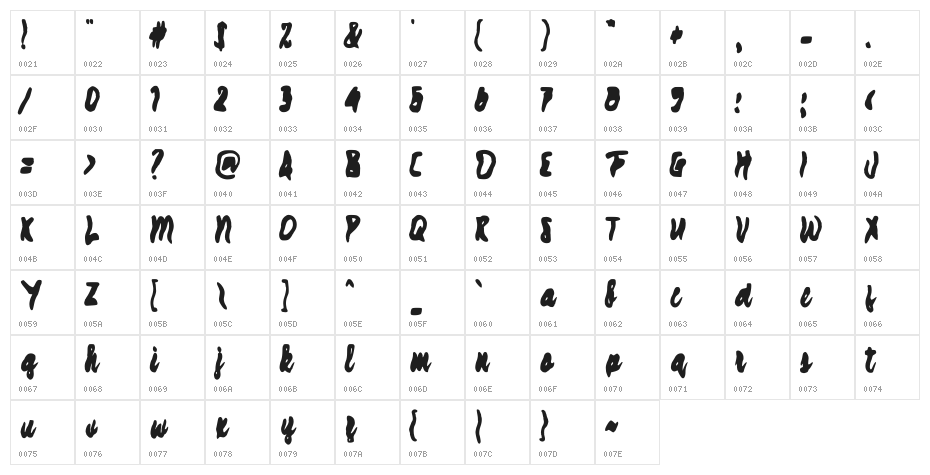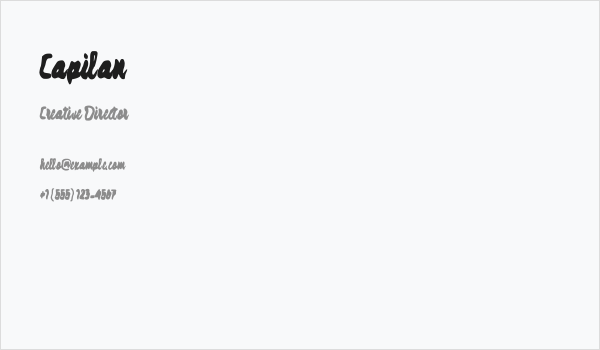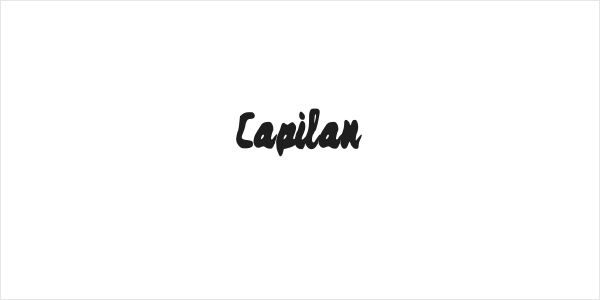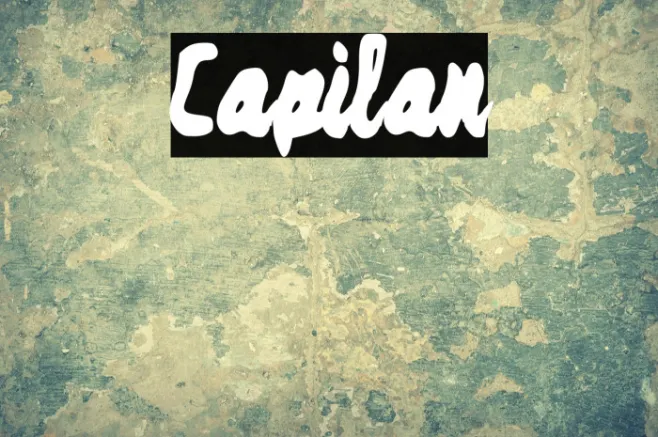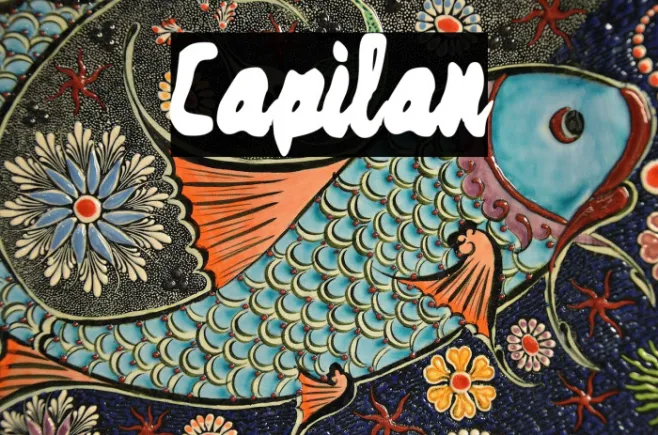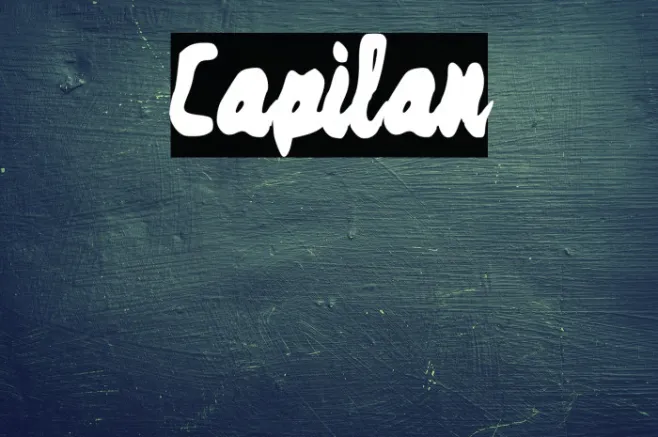
Capilan Font
Capilan Description
This font features a bold and expressive style with a hand-drawn appearance. The characters are thick and have an irregular, organic shape, giving them a playful and artistic feel. The uppercase and lowercase letters maintain a consistent weight, while the numbers and special characters follow the same bold and dynamic design. The overall look is informal and creative, making it suitable for projects that require a touch of personality and flair.
| Use Case | Logos, Posters, Creative projects |
| Proposed Projects | Ideal for artistic projects, children's books, posters, and creative branding. |